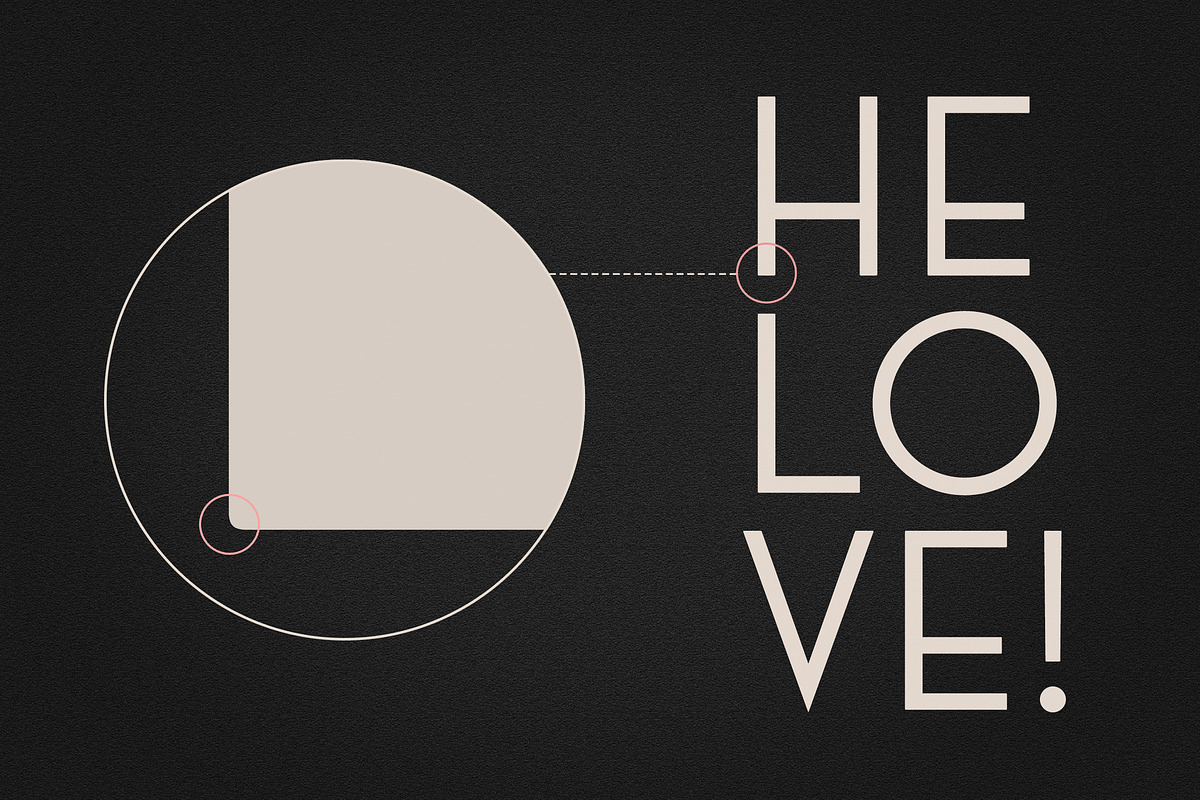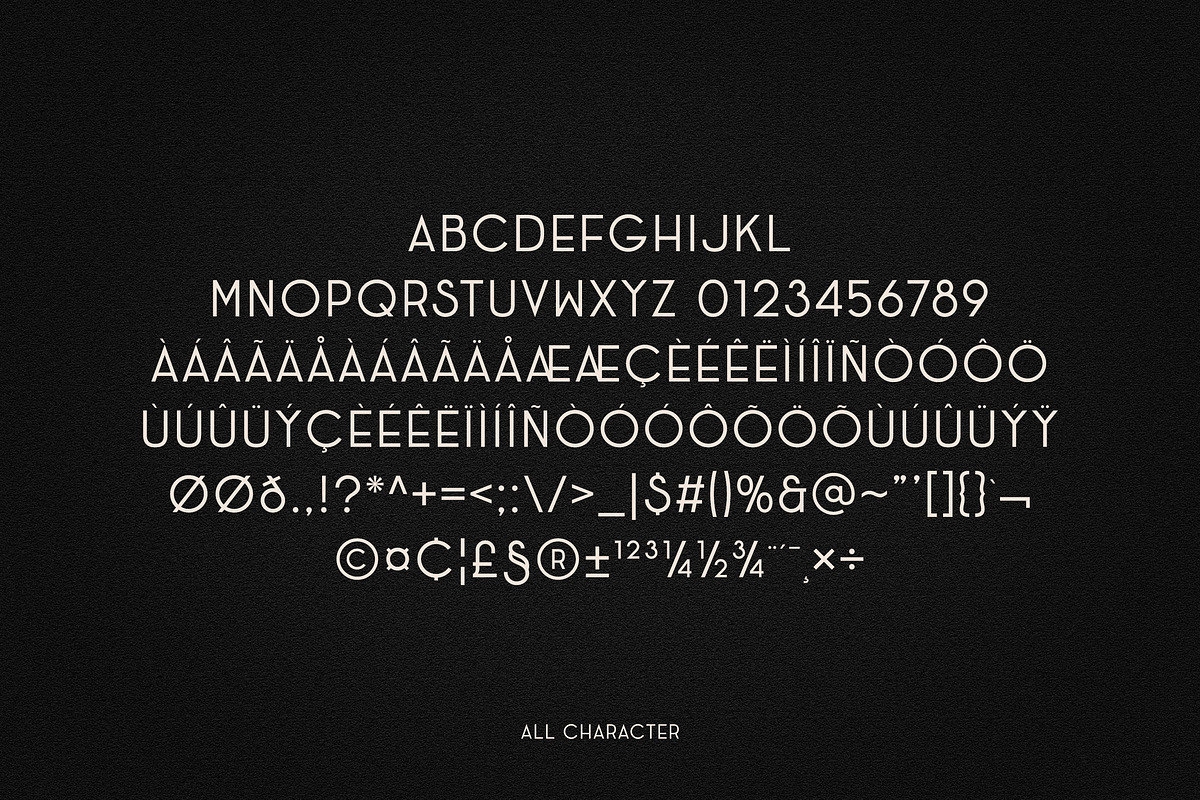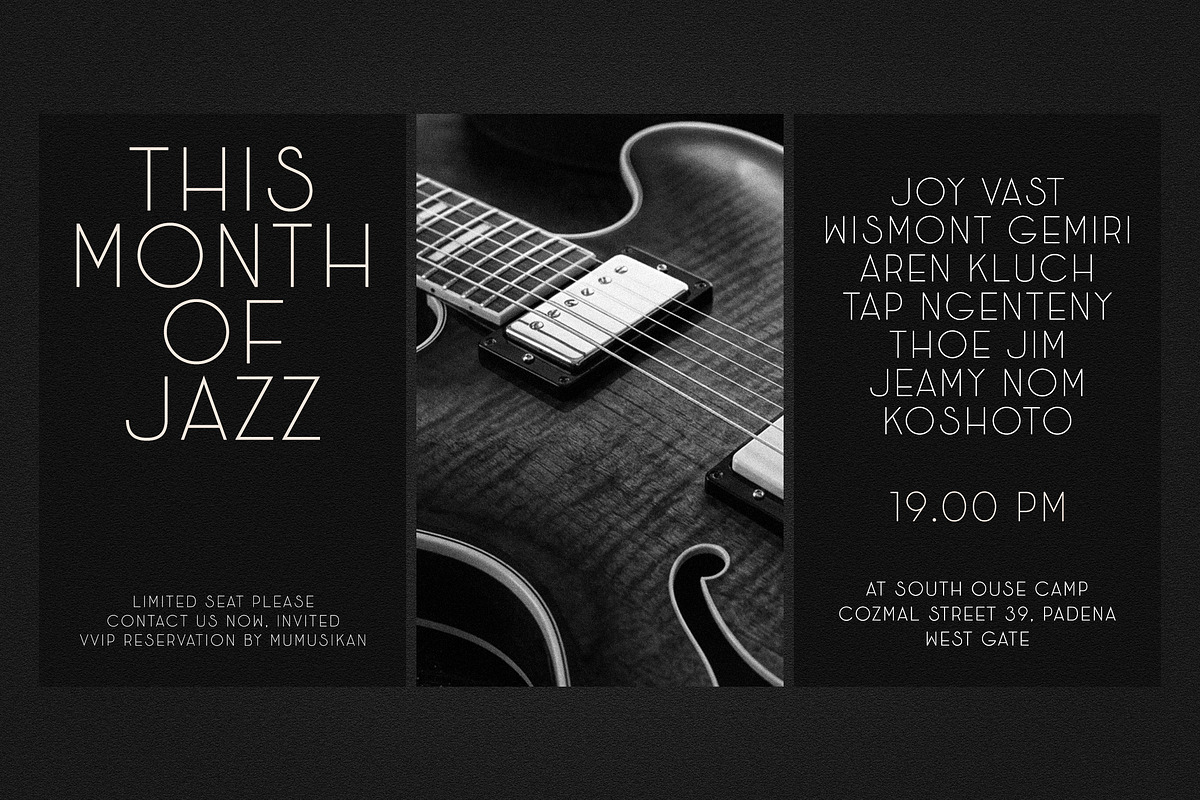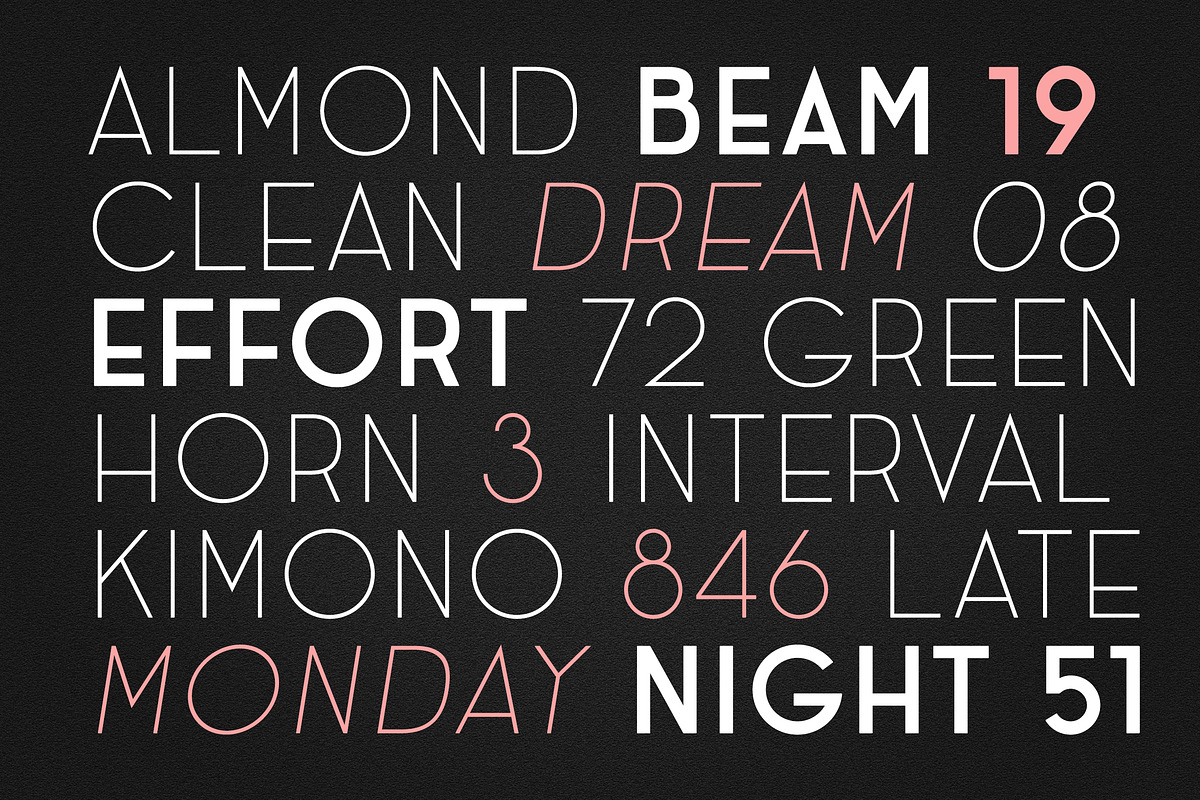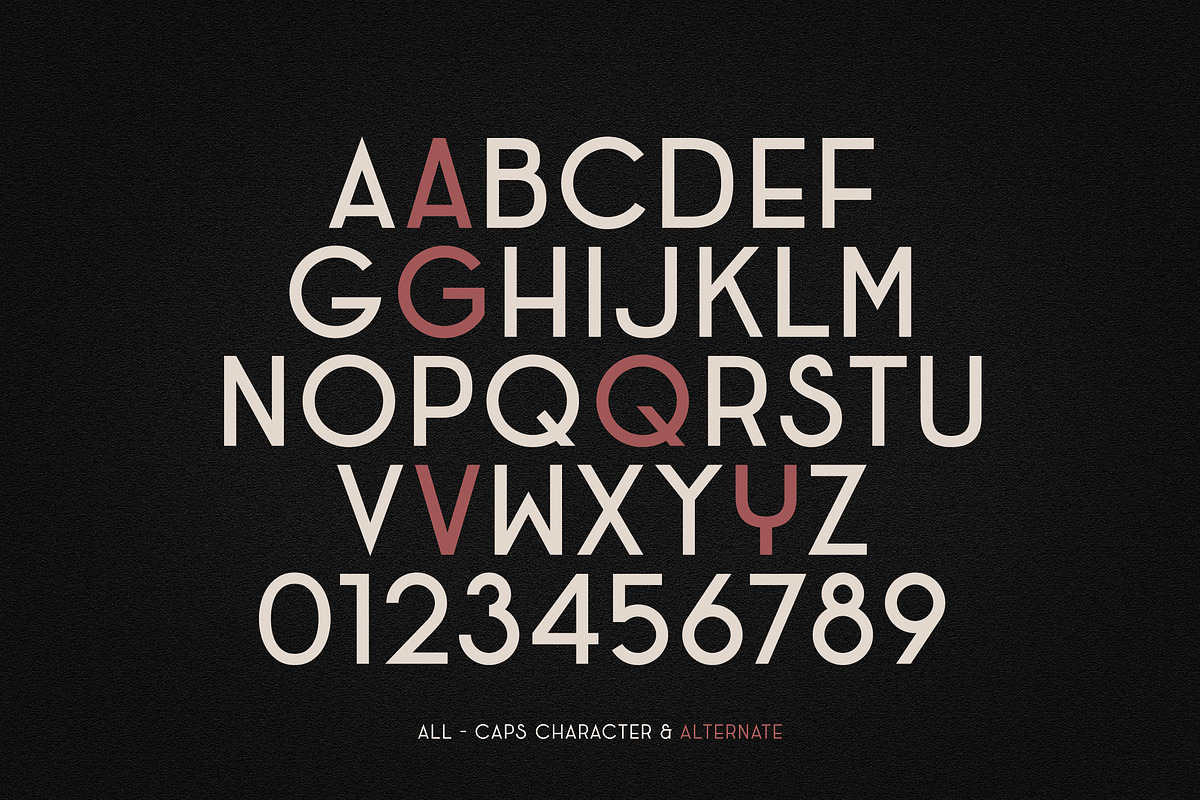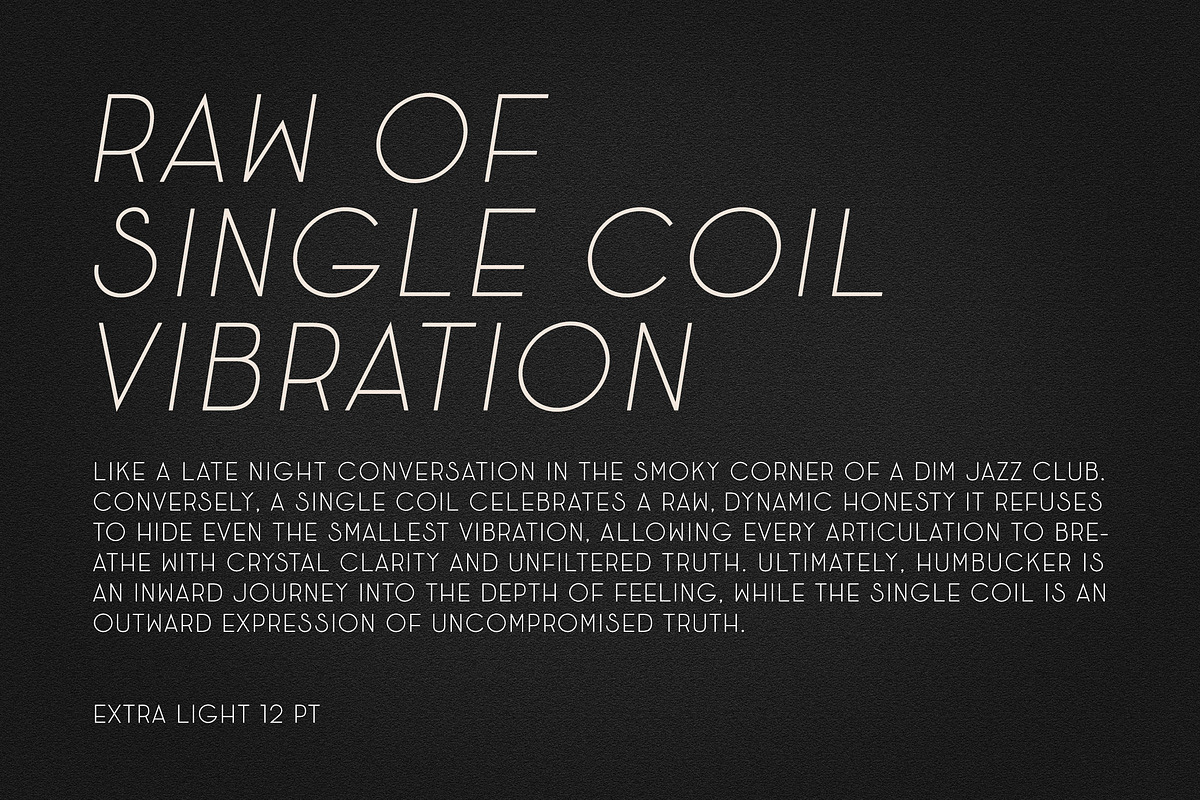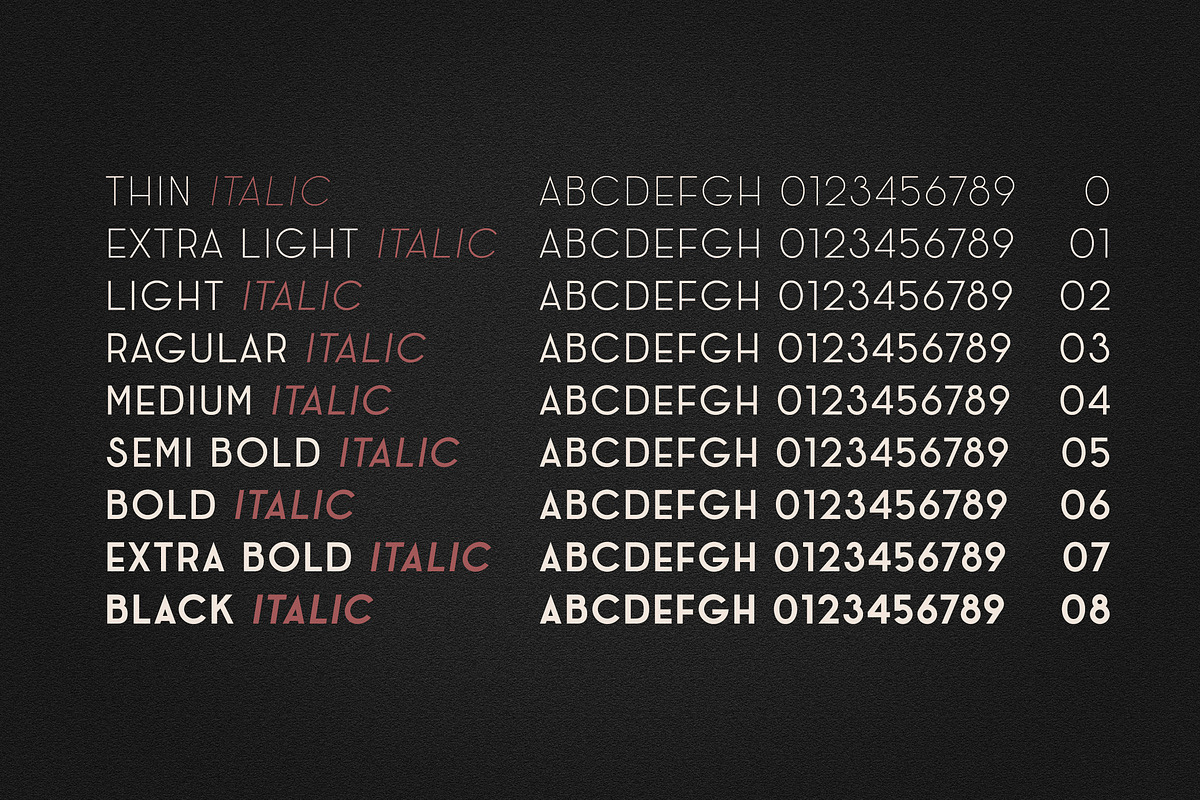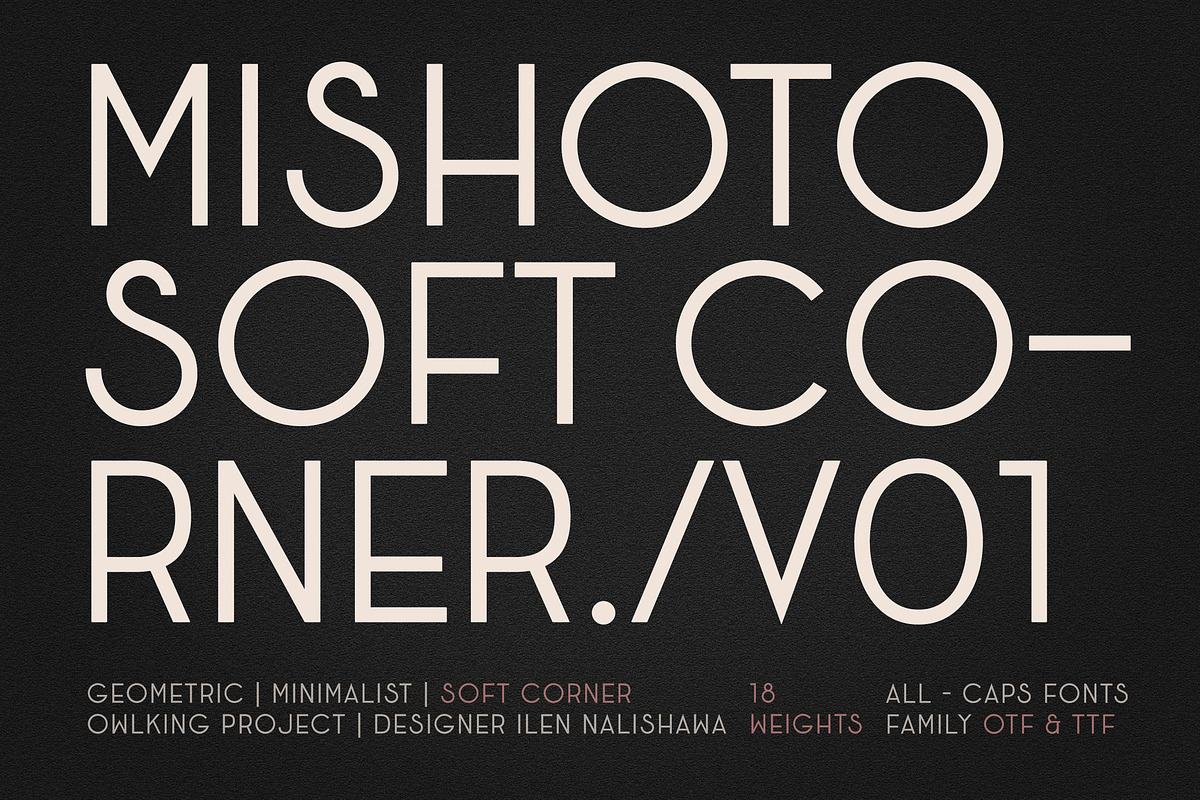
Mishoto Soft
Mishoto** Soft Corner**
redefines the classic geometric aesthetic. While maintaining a strong, clean structural foundation, each character is meticulously refined with soft, rounded corners. This unique detail strips away the harshness of traditional geometric sans-serifs, leaving behind a warm, sophisticated, and premium feel.
Mishoto Soft Corner operates entirely in uppercase, but it includes a rich set of creative alternate characters (such as unique variations for A, G, Q, V, and Y). This allows designers to easily switch styles, create custom logotypes, and play with visual hierarchy instantly. With 9 distinct weights, from a whisper-thin 'Thin' to an impactful 'Black' plus their corresponding oblique italics, you have 18 total fonts at your disposal to tackle any design challenge.